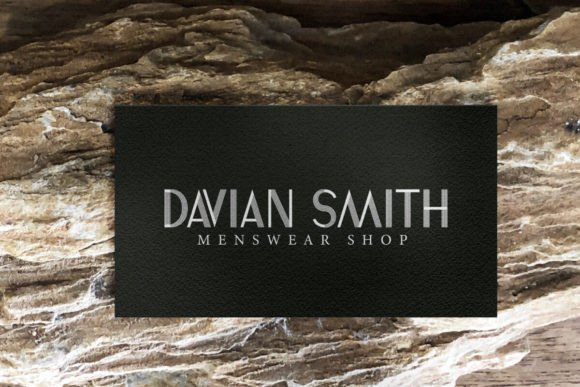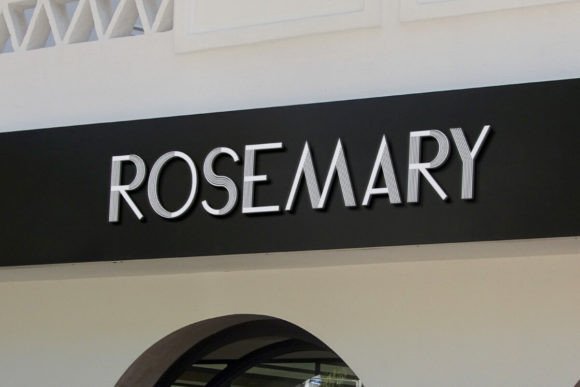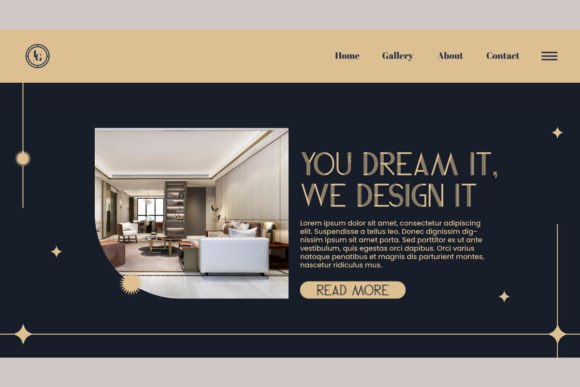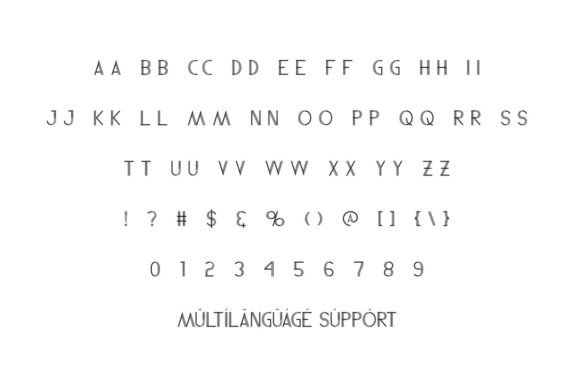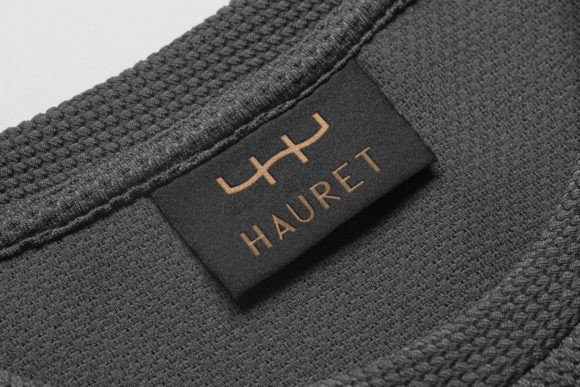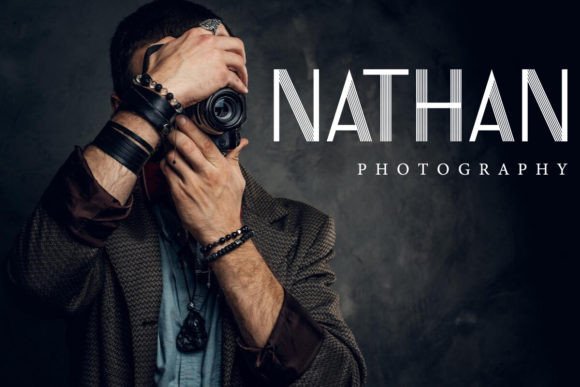
The Perfect Blend of Creativity and Functionality
Have you ever stared at a blank canvas, trying to come up with the perfect font to bring your design to life? You’ve browsed through countless options, only to feel uninspired and stuck. That’s where the Absurd World Font comes in – a game-changing typeface that’s sure to spark your creativity and take your projects to the next level.
This abstract modern display font boasts a unique shape that’s both striking and versatile. With its distinctive features, such as stripes that unite and attach to the corners of solid letters, and sharp shapes that make certain letters stand out, the Absurd World Font is the perfect addition to any design project.
Key Features of Absurd World Font
- Font Family: Absurd World Font comes in 2 font families: Regular and Bold.
- Unique Characteristics: The Absurd World Font features a unique blend of whimsical and surreal elements, making it perfect for designs that require a touch of absurdity and playfulness.
Designer Review: Absurd World Font
I recently had the chance to work with the Absurd World Font, and I must say, it’s a unique and quirky addition to any design project. ✨ The font’s eclectic style is sure to grab attention and add a touch of personality to any text. It’s perfect for designers who want to break away from the usual sans-serif or serif fonts and create something truly one-of-a-kind.
One of the things I appreciate most about the Absurd World Font is its versatility. ✨ It can be used for a wide range of projects, from graphic design to digital UI. The font is highly customizable, allowing designers to adjust the size, color, and even the level of absurdity to suit their needs.
- ⚠️ Limited font sizes: While the font is highly customizable, it can become difficult to read at very small sizes. Designers may need to use a different font for smaller text.
- ⚠️ Limited support for certain languages: The font may not support certain languages or character sets, which could limit its use in global projects.
Overall, I think the Absurd World Font is a great addition to any designer’s toolkit. It’s a fun and creative way to add some personality to your designs, and its versatility makes it a great choice for a wide range of projects. With some careful planning and consideration of its limitations, the Absurd World Font can be a real showstopper.
The Absurd World Font is perfect for:
- Creating eye-catching headlines or titles.
- Designing creative social media graphics.
- Adding a touch of whimsy to your branding or marketing materials.